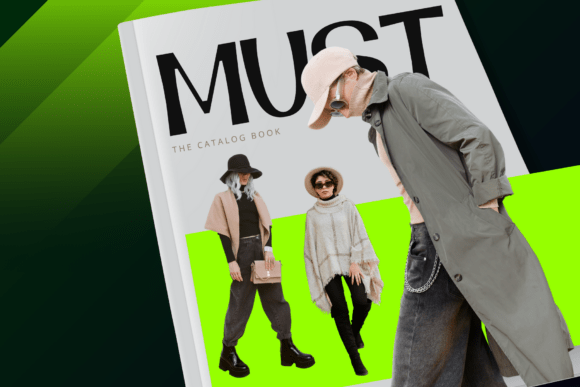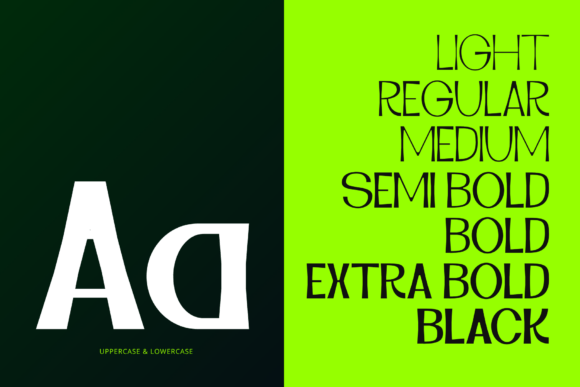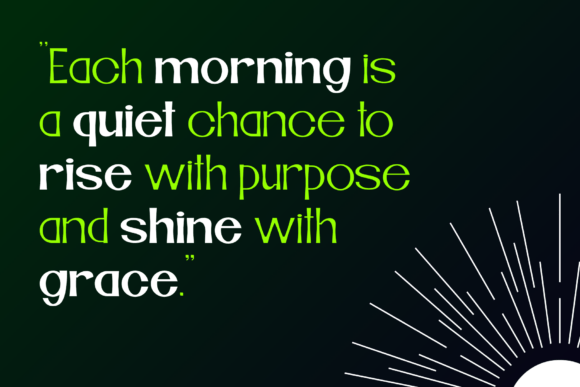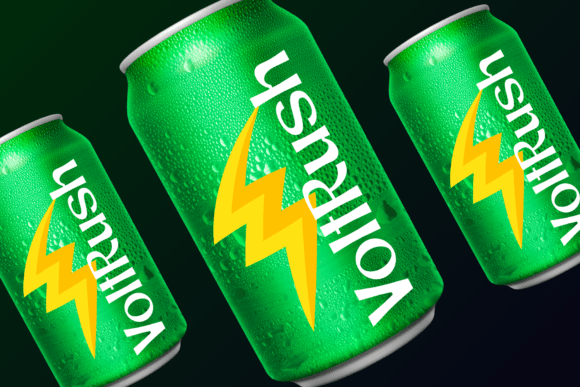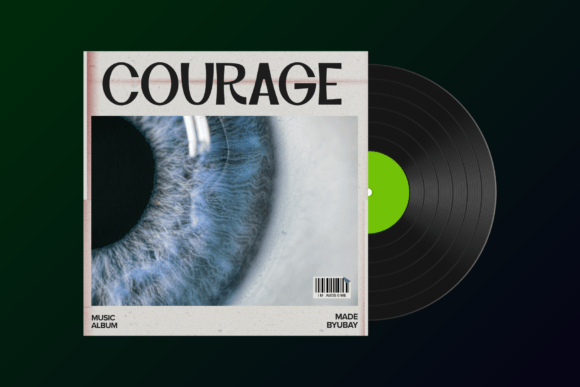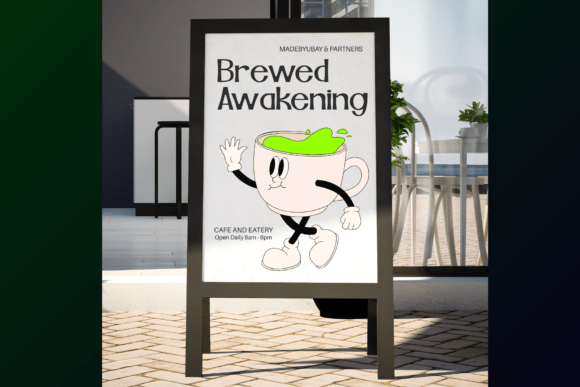
Introduction to Karom Font
Have you ever stared at a blank canvas, struggling to find the perfect font to bring your creative vision to life? The hunt for the perfect typography can be a daunting task, but what if I told you that the solution lies in a sleek, modern sans serif font that’s about to revolutionize your design game?
Meet Karom Font, a game-changing design resource that’s poised to elevate your creative project from ordinary to extraordinary. With its clean lines, geometric balance, and high-quality design, Karom Font is the ultimate solution for designers seeking a strong visual identity that stands out across print and digital platforms.
Whether you’re looking for a free download or a paid option with a transparent background, Karom Font’s versatility and flexibility make it an invaluable asset for any designer. In this article, we’ll delve into the world of Karom Font, exploring its features, benefits, and why it’s a must-have for any creative project.
Key Features of Karom Font
- Designed with high-resolution clarity, suitable for print and digital applications
- Unique characteristics include a modern, minimalist aesthetic and extensive language support
Honest Review: Karom Font
As a designer, I’m always on the lookout for high-quality design resources that can elevate my creative projects. The Karom Font is one such resource that caught my attention, and I’m excited to share my honest review with you.
- ✨ The Karom Font offers a clean and modern design aesthetic that’s perfect for a variety of creative projects.
- ✨ The transparent background of the font allows for seamless integration with any design element.
- ✨ The font is highly customizable, making it easy to adjust to suit your design needs.
- ⚠️ The Karom Font may not be suitable for complex typography projects, as it’s primarily designed for simple text-based designs.
- ⚠️ The font may require additional styling to achieve the desired effect, depending on your design preferences.
Overall, I’m impressed with the Karom Font’s design quality and versatility. While it may have some limitations, it’s an excellent resource for designers looking for a high-quality, free font for their creative projects.
How to Use Karom Font
The Karom Font is a versatile, high-quality design resource ideal for creative projects. It offers a transparent background, making it perfect for overlaying on images or using as a standalone element.
Getting the Most Out of Karom Font
To maximize the impact of the Karom Font, use it in conjunction with high-quality images or graphics. Experiment with different font sizes, colors, and styles to achieve a unique look.
The Karom Font is suitable for a variety of projects, including:
- Web design and landing pages
- Infographics and presentations
Pacifico Font is a beautiful, elegant script font that’s perfect for use in design projects that require a touch of sophistication and style. It’s ideal for use in logos, branding materials, and other creative projects that need a clean and modern look. Compared to Karom Font, Pacifico Font has a more streamlined and modern look, making it suitable for projects that need a contemporary and sleek feel.
Can I customize the Karom Font to suit my design needs?
Yes, the Karom Font is highly customizable. You can use font editing software like FontForge or FontLab to modify the font’s characteristics, such as font size, line spacing, and letter spacing. Additionally, you can use font manipulation tools to create variations of the font with different styles, weights, or effects.